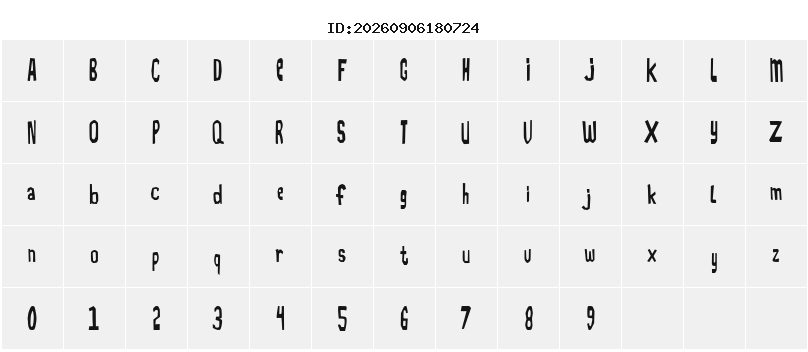
TMBFont Preview
• Font Name: TMBFont
• Full Font Name: TMBFont
About TMBFont.ttf
TMBFont.ttf is a modern, elegant sans-serif font designed for ultimate readability and visual harmony. Perfect for branding, headlines, web design, and print materials.